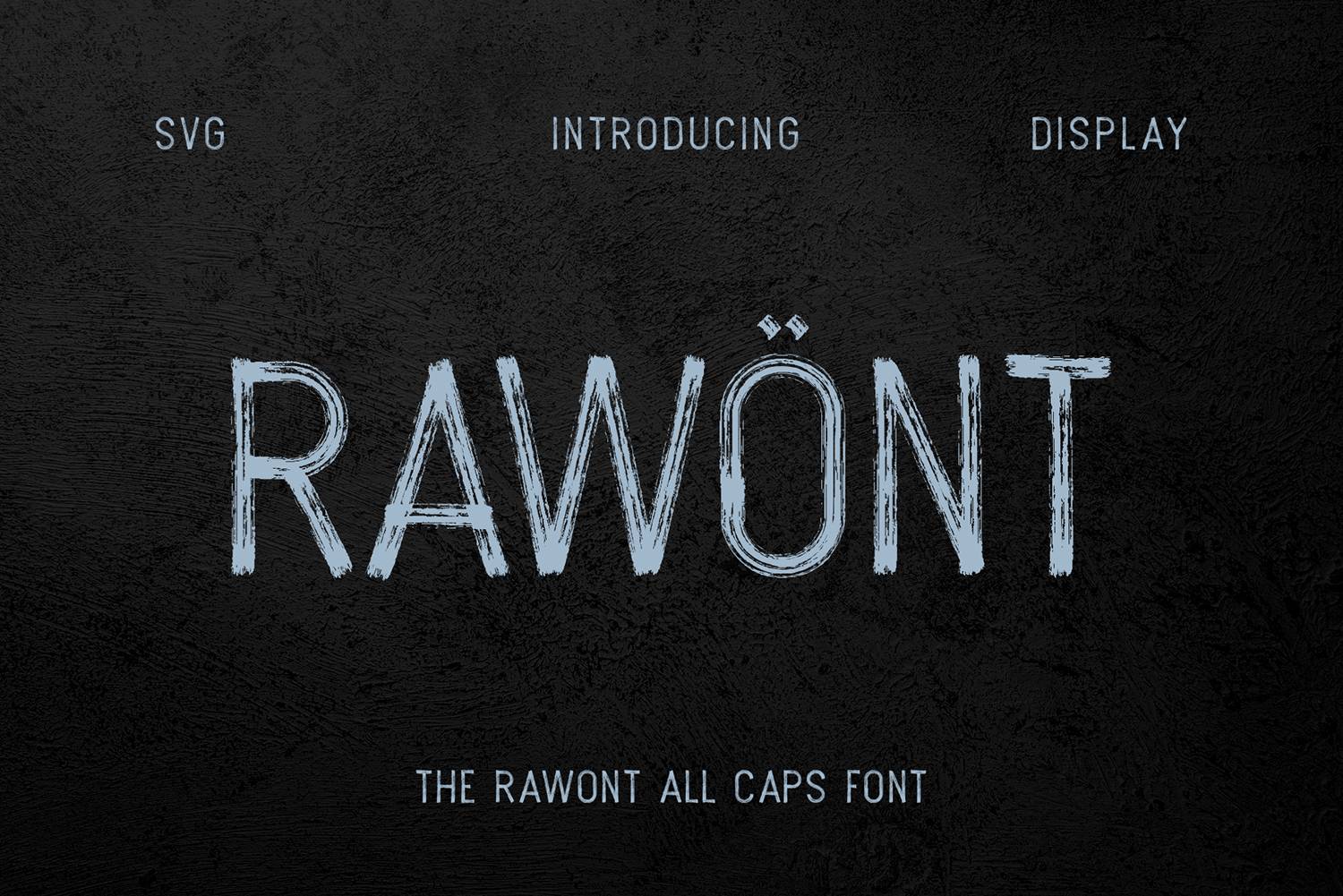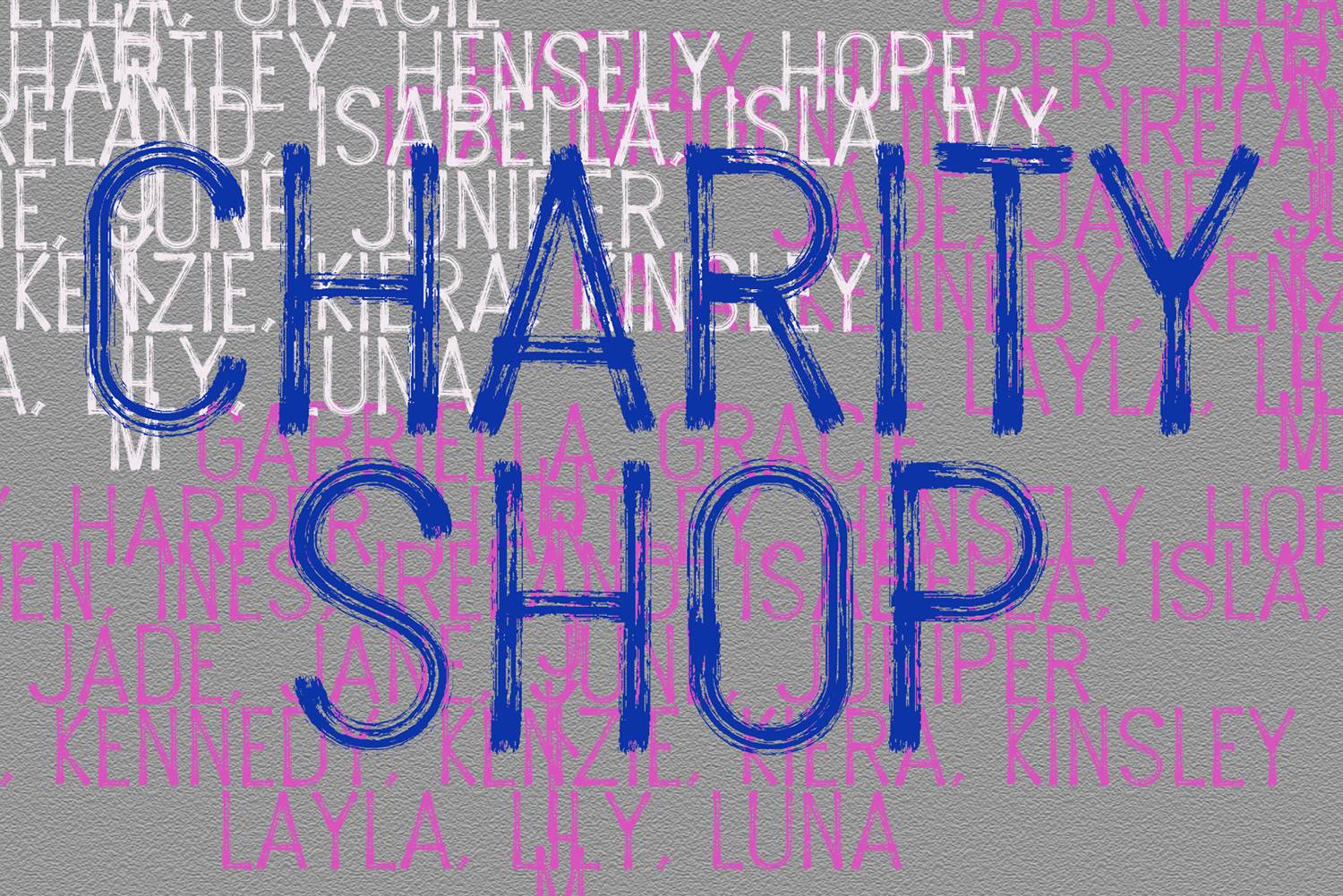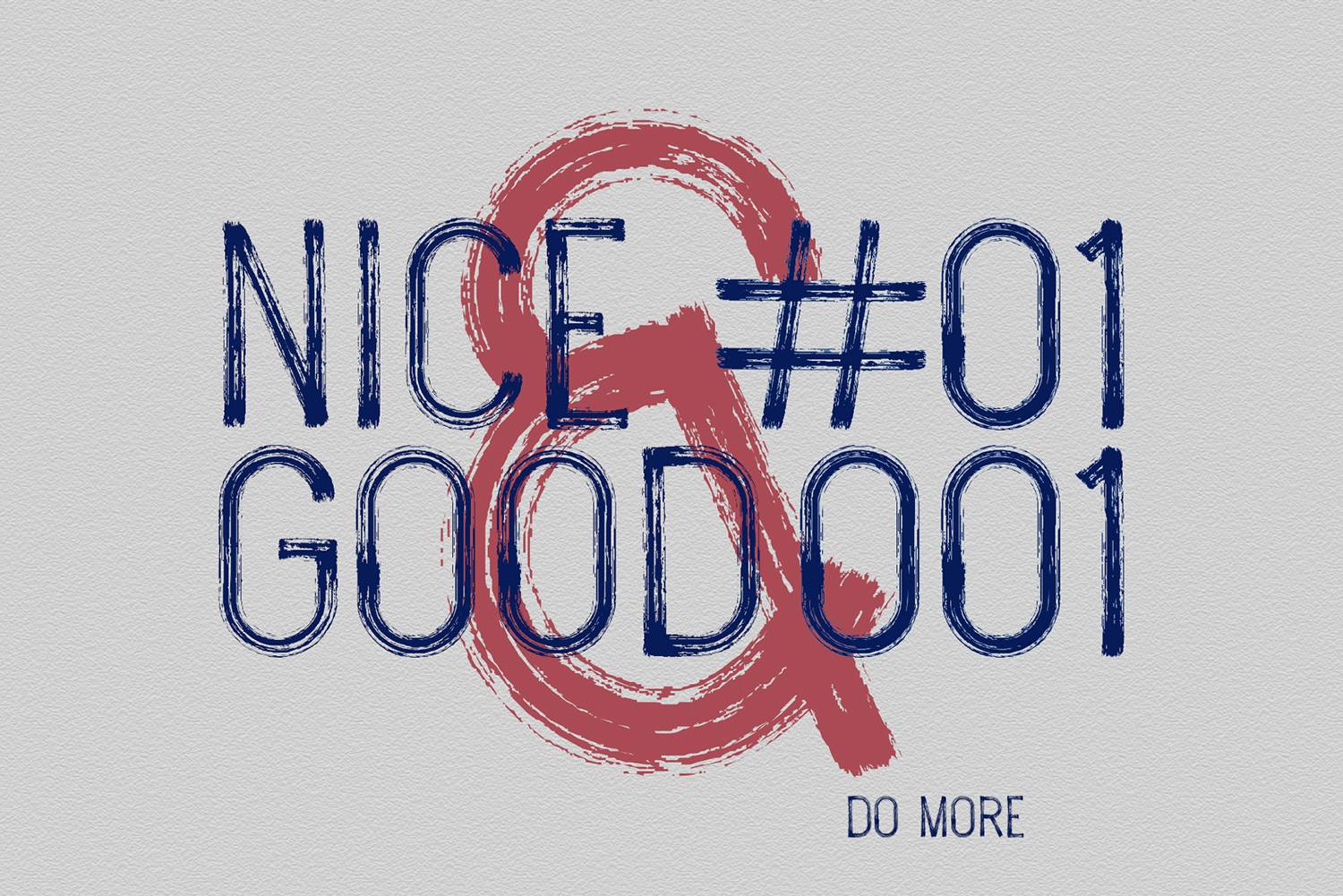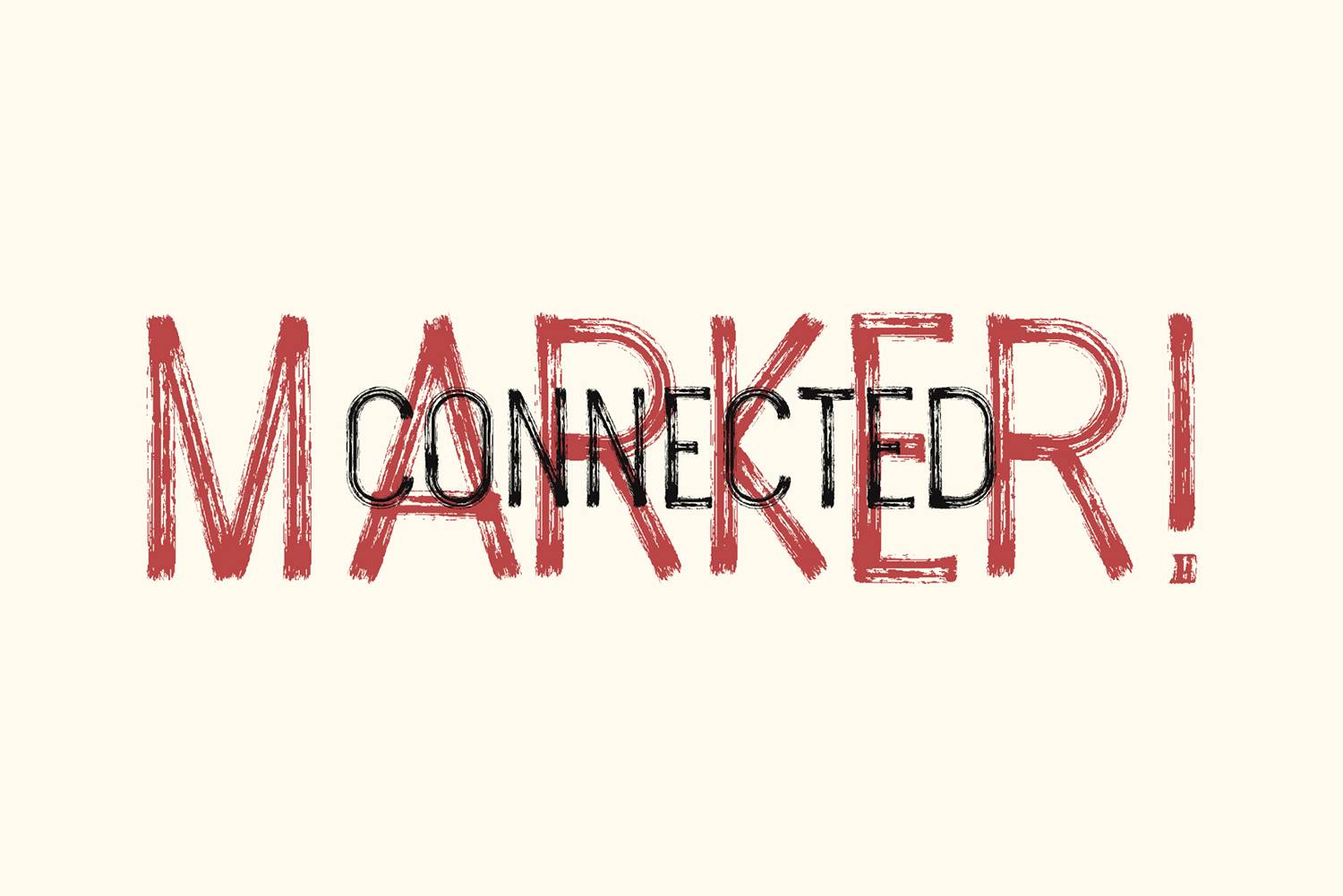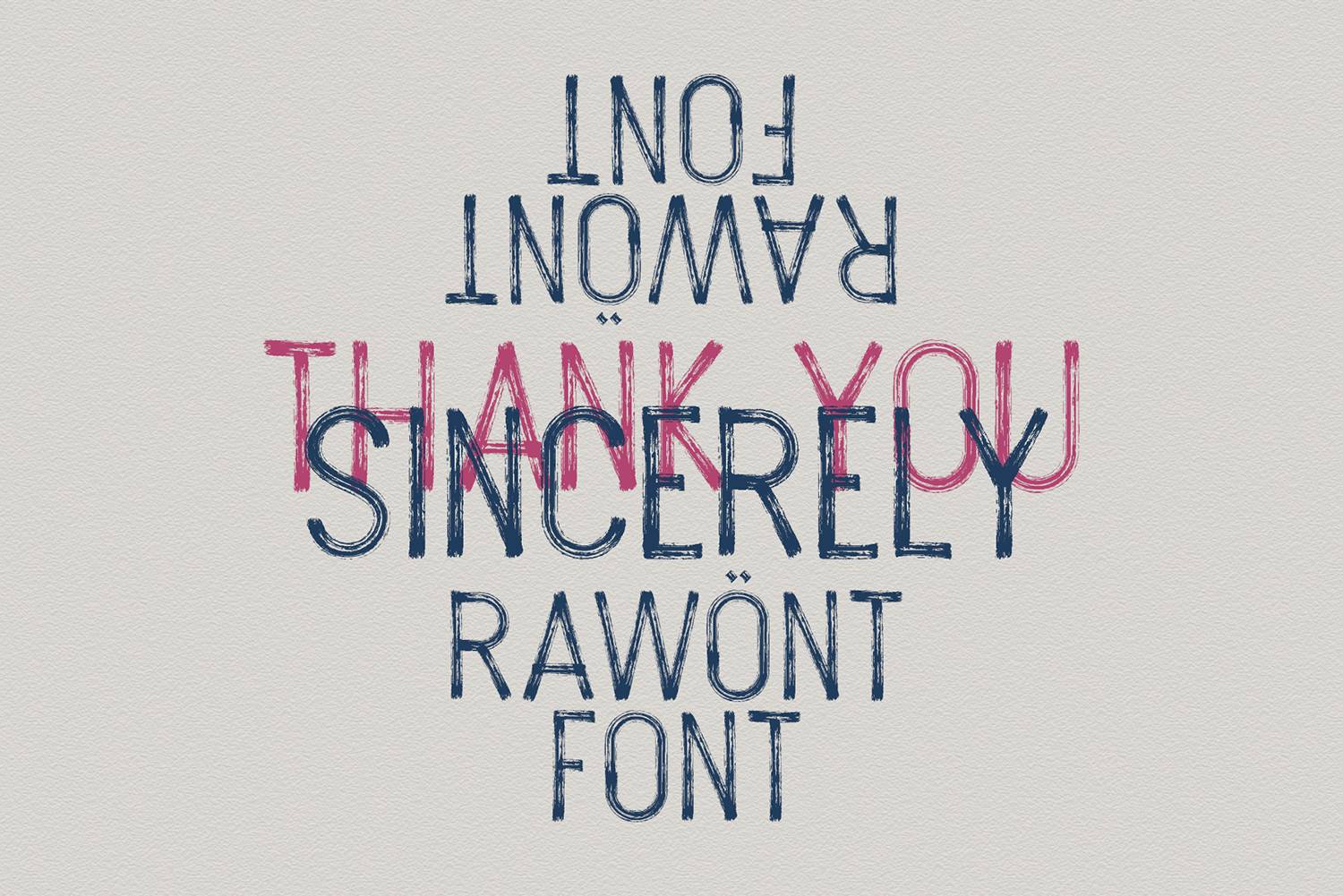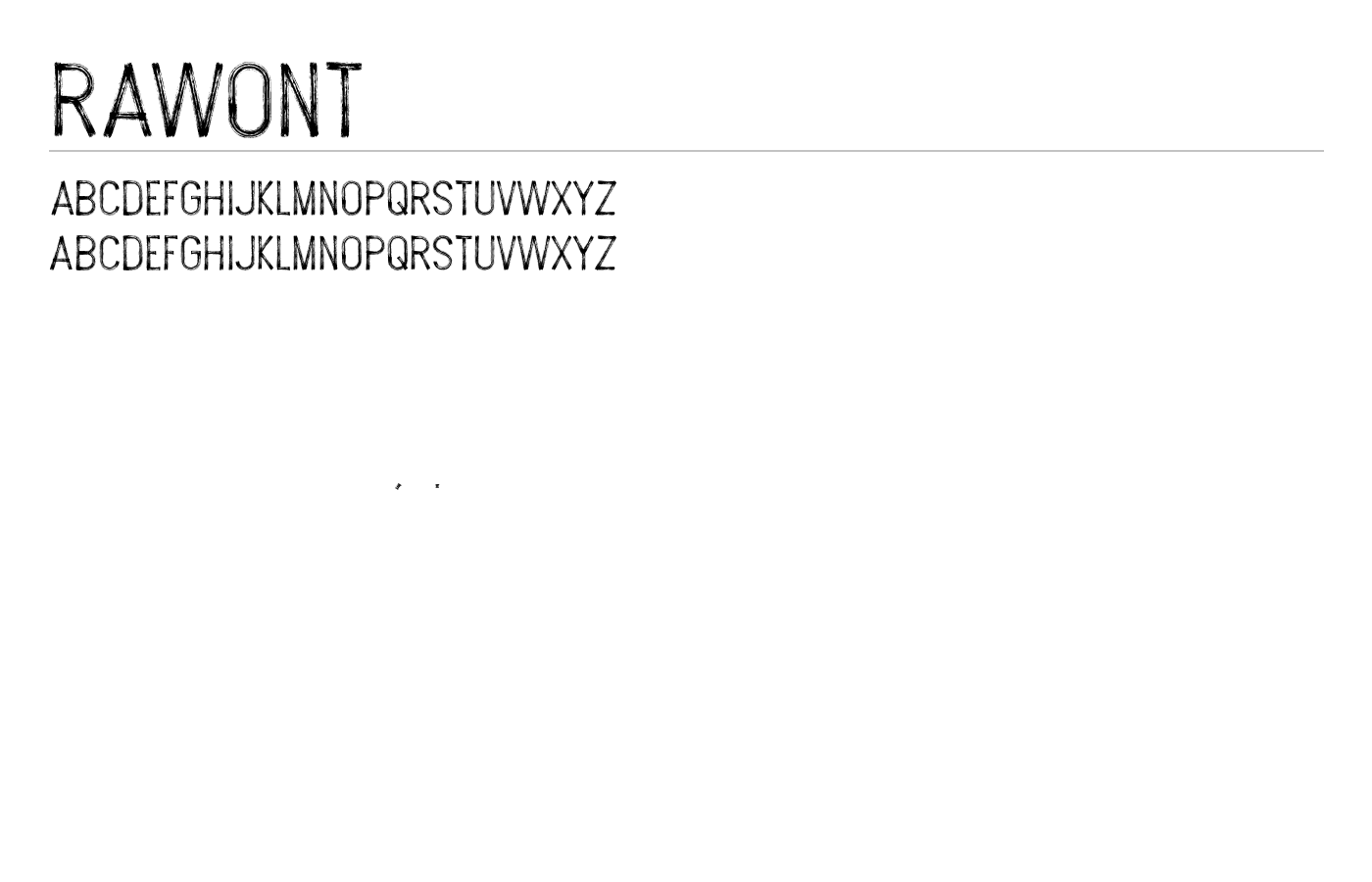
Rawont is a narrow, uppercase sans serif font with a textured, distressed effect that gives it a raw and gritty character. Its tall, condensed letterforms with subtle irregularities convey a hand-crafted, vintage industrial feel, making it ideal for bold headlines, branding, and designs that want to express ruggedness and authenticity. This font works well in creative projects requiring a strong, edgy presence without sacrificing readability.
Rawont Font
About Rawont Font